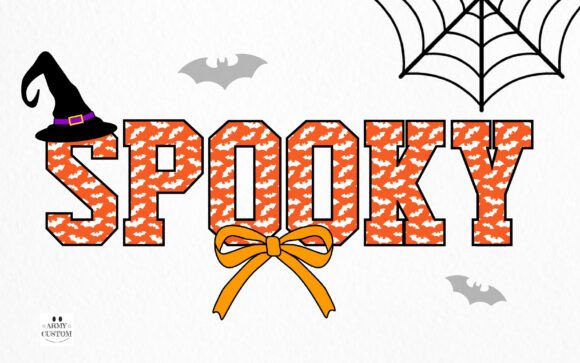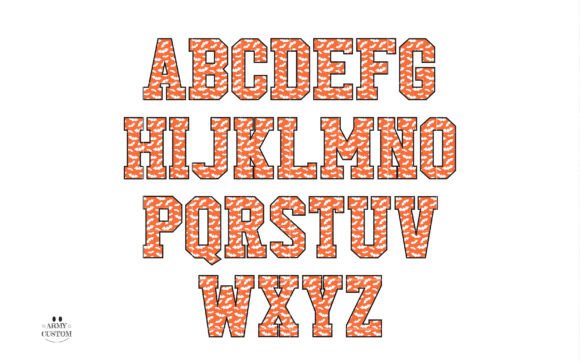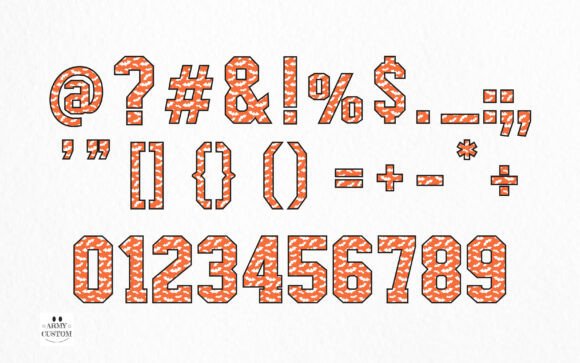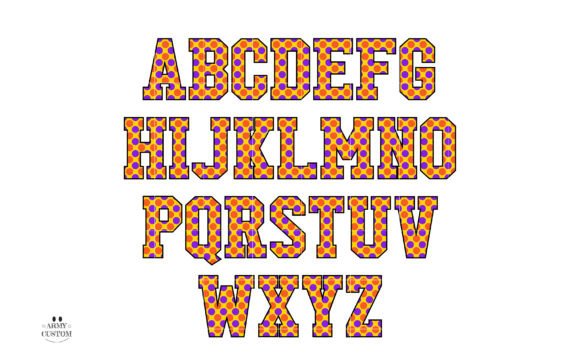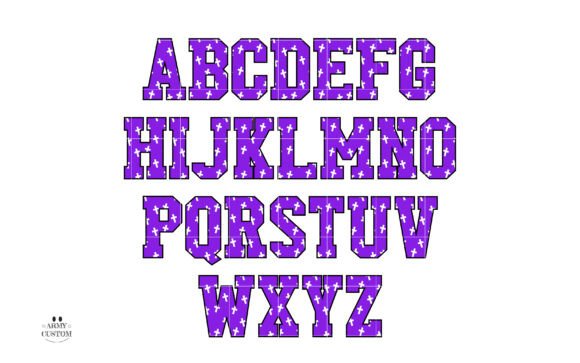
Halloweenvarsity Bats Font – Free Download
Introduction to Halloweenvarsity Bats Font
This Halloween Varsity typeface is a heavyweight, blocky color font built for impact.
Strokes are thick and largely monoline, wrapped in a bold outer keyline with a clean inner inset, giving the letters a layered, patch-like look Forms are geometric and upright: straight verticals, squared shoulders, sharp mitered corners, and wide rectangular counters that welcome pattern fills.
Key Features of Halloweenvarsity Bats Font